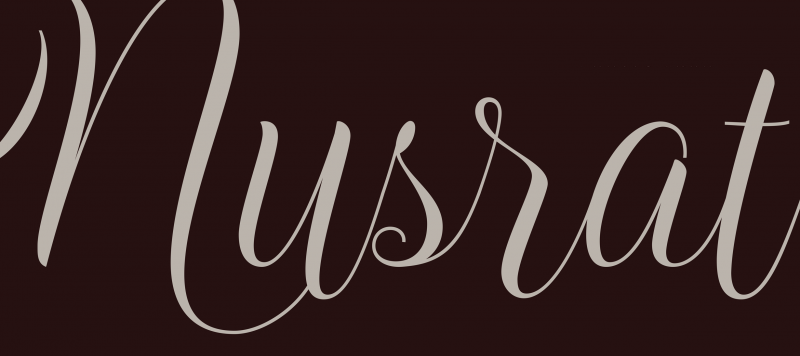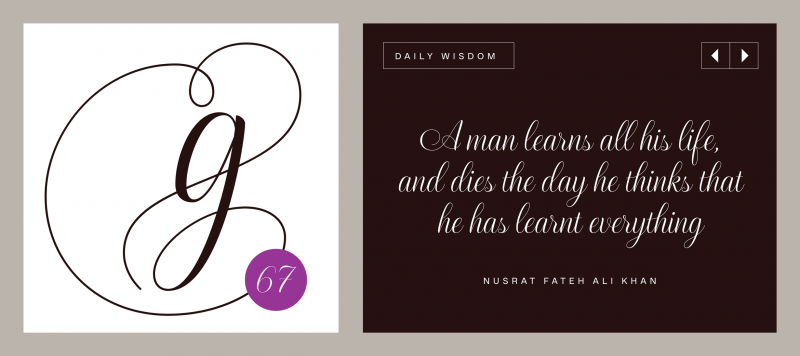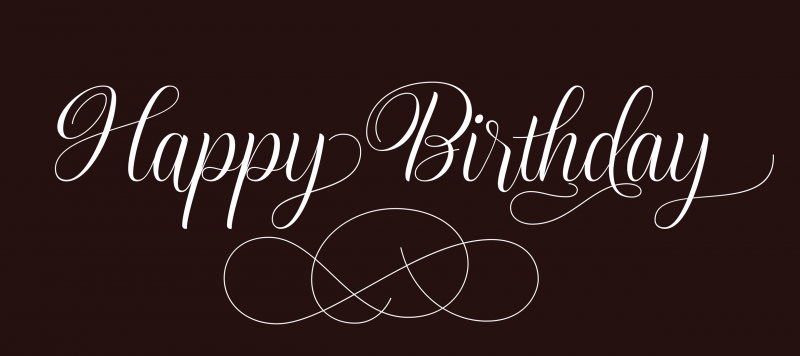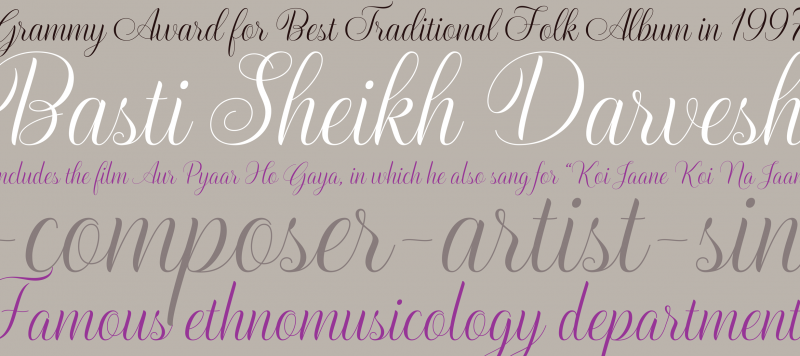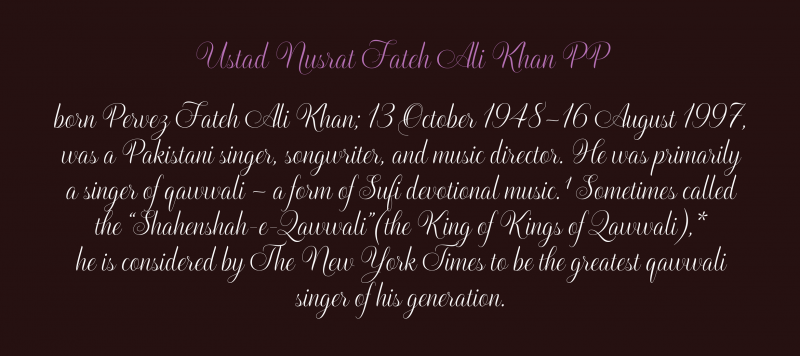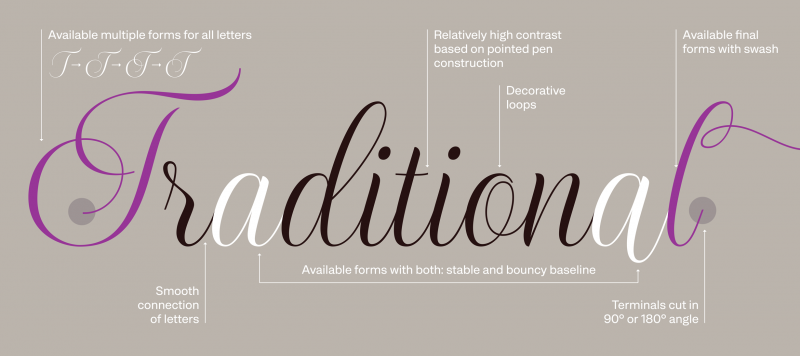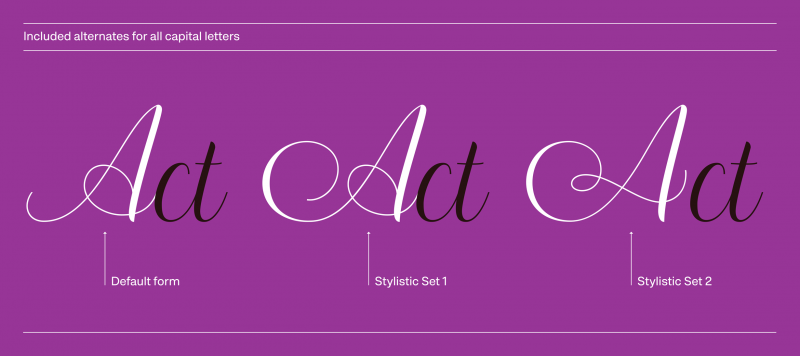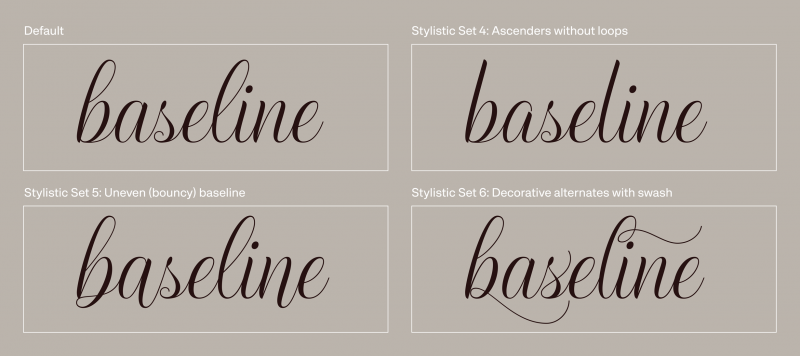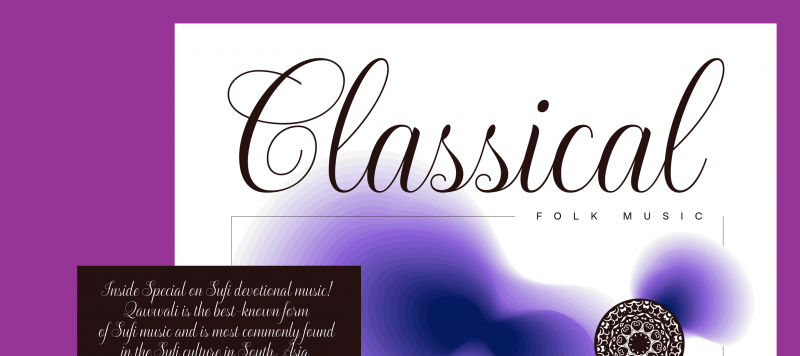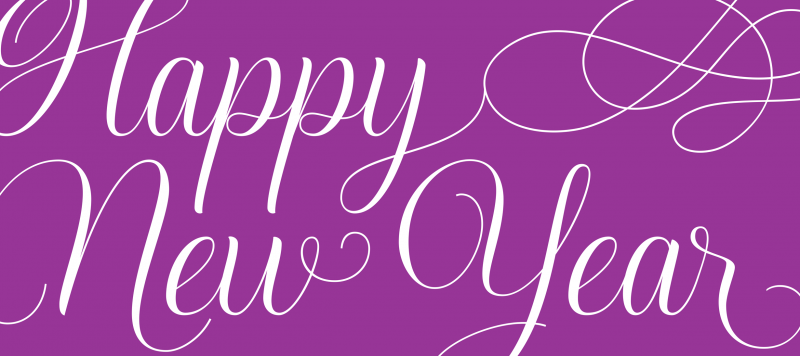
Nusrat is a sophisticated script typeface. Its suave appearance is instantly apparent, thanks to its letterforms’ formal-looking appearance. Elegance flows from their high-contrast structure. But the typeface’s sophistication also has a font-technical explanation: Nusrat is incredibly feature-rich. On its back end, it has more than a dozen OpenType features, which allow it to work with a repertoire of 1,600 glyphs – about four times as many as are common in fonts for the Latin script. Some script fonts are just italics, and their letterforms don’t connect. Nusrat, on the other hand, is a connecting-script typeface. That connectivity is the reason so many glyphs are necessary. They help give Nusrat the impression that its text is hand-written by a skilled calligrapher. Each letter flows naturally into the next, no matter which letter combinations you type. For instance, Nusrat’s OpenType features can automatically substitute a special “initial” letter at the beginning of words that start with lowercase letters, and special “final” lowercase letters at words’ ends. These makes your words look like they were written in a single go. Many of Nusrat’s alternate characters can also be called via the font’s Stylistic Sets. The OpenType feature “Stylistic Set 1” has alternate forms for 25 capital letters, while Stylistic Set 2 has additional alternates for 13 more. Stylistic Set 3 has alternates for 12 capitals. Like the previous Stylistic Set, this one has alternates for all diacritical instances of those letters in the fonts’. Stylistic Sets 4 to 13 are for lowercase letter alternates, with Stylistic Sets 7–9 offering various versions of initial letters and 10–13 featuring alternates for final letters. Stylistic Set 14 includes more exuberant versions of the font’s numerals. Aside from that, you can select oldstyle figures for your text, too. The typeface is named after the famous Pakistani Qawwali singer Nusrat Fateh Ali Khan.
| Designer(s) | Parvez Ansari |
| Available Style | Regular |
| Classification | Script |